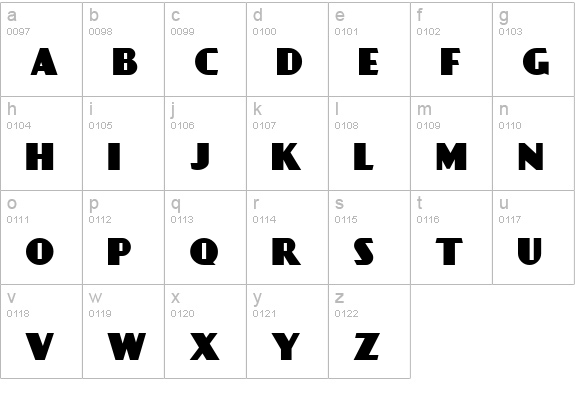
DayPosterBlack Font Details
DayPosterBlack font is a modern and stylish typeface that exudes creativity and sophistication. With its bold and eye-catching design, this font is perfect for making a statement in any project. Whether you're designing a poster, logo, or branding materials, DayPosterBlack font will add a touch of elegance and professionalism. The best part is, DayPosterBlack font is available for free download at FontsMarket.com. This means you can easily access this stunning font and use it in your projects without any cost. Don't miss out on the opportunity to enhance your designs with the unique charm of DayPosterBlack font. Download it today and elevate your creations to the next level.